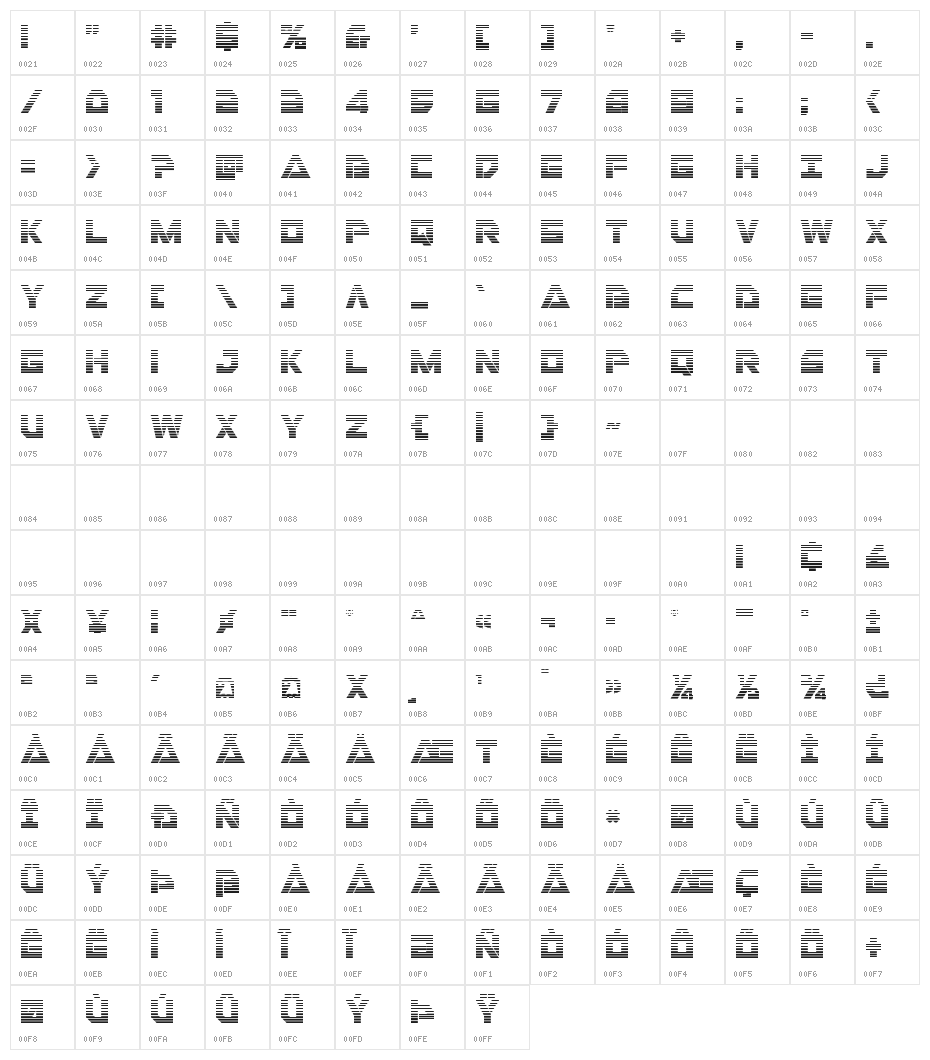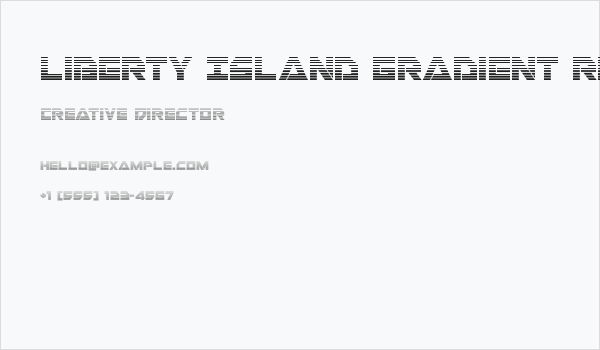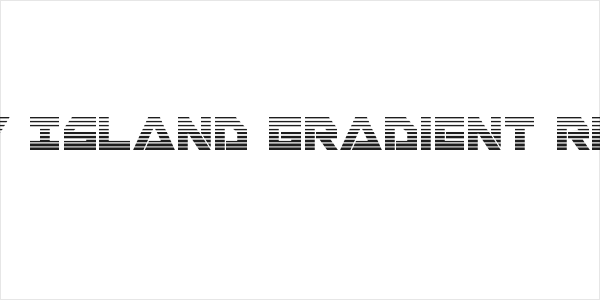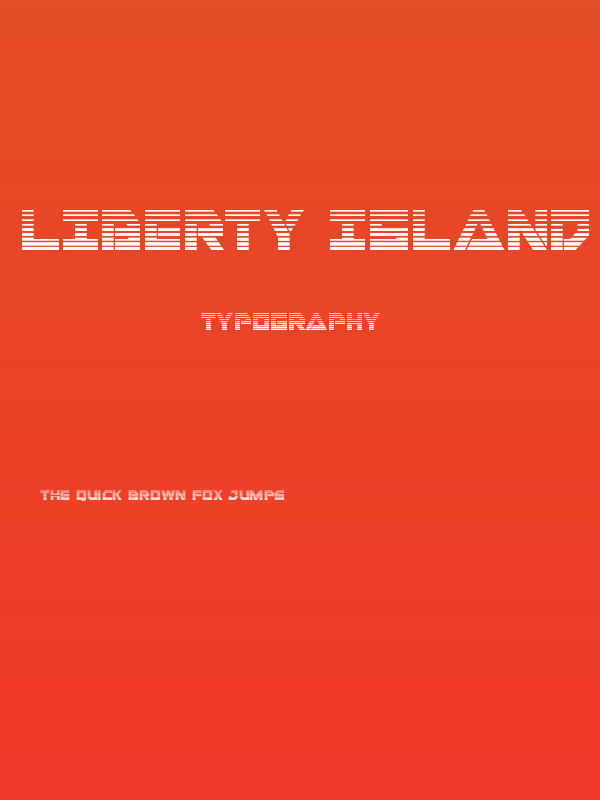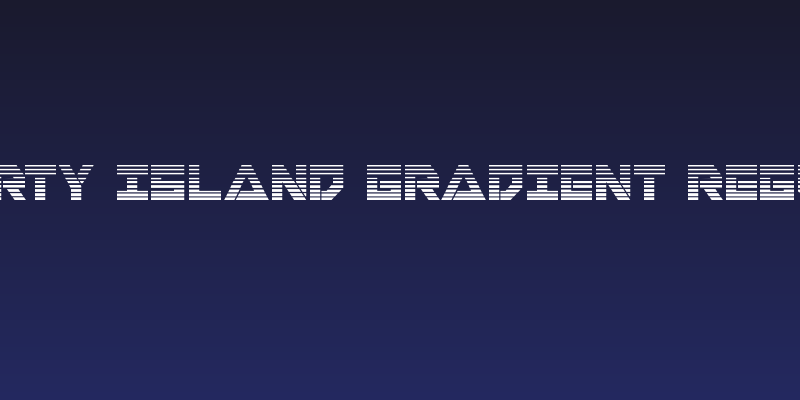
Liberty Island Gradient Regular Font
Liberty Island Gradient Regular Description
This font features a unique, modern design characterized by horizontal lines that create a gradient effect across each character. The uppercase and lowercase letters, as well as numbers and special characters, maintain a consistent style with bold, geometric shapes. The design is visually striking, making it suitable for attention-grabbing headlines or logos. The horizontal lines give the font a sense of movement and energy, while the overall structure remains clean and easily readable. The font's distinct appearance makes it ideal for projects that require a contemporary and dynamic look.
| Proposed Projects | Ideal for use in branding, advertising, posters, and digital media where a modern and dynamic look is desired. |